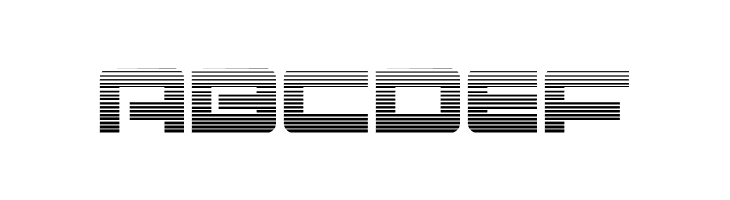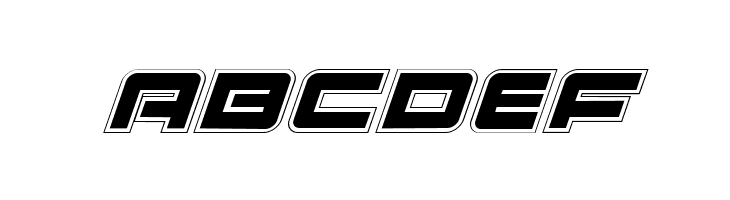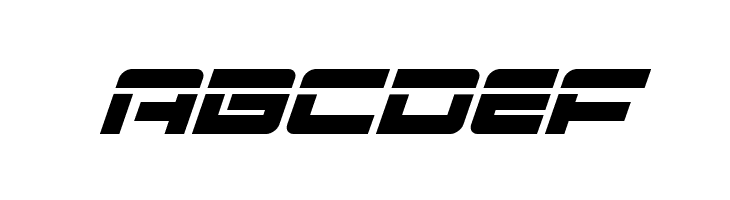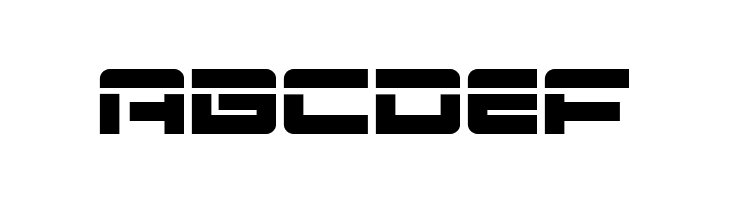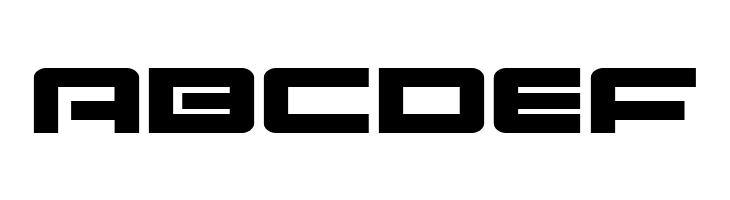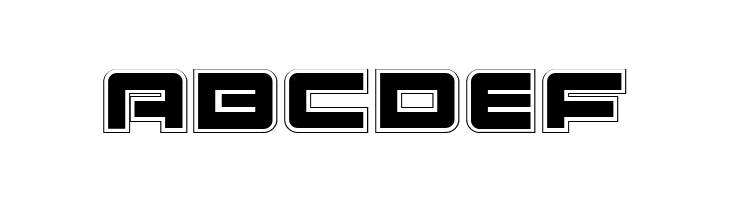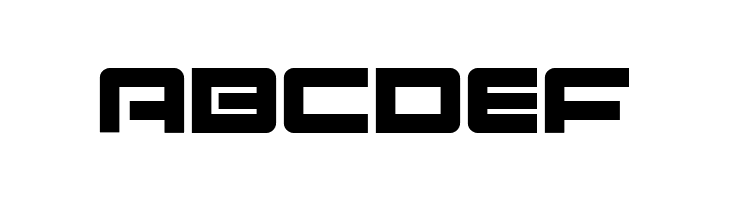
Coelacanth Italic Font
- Font: Coelacanth Italic
A bold, futuristic font with angular, italicized characters.
A futuristic, gradient-lined font with a bold, geometric style.
A bold, italic font with a futuristic and dynamic design.
A futuristic, bold, and italicized font with sharp, angular design.
A futuristic, angular font with a bold, geometric style.
A futuristic, bold font with geometric and angular shapes, perfect for tech themes.
A bold, futuristic font with geometric, outlined characters.
A bold, futuristic font with geometric and industrial design elements.